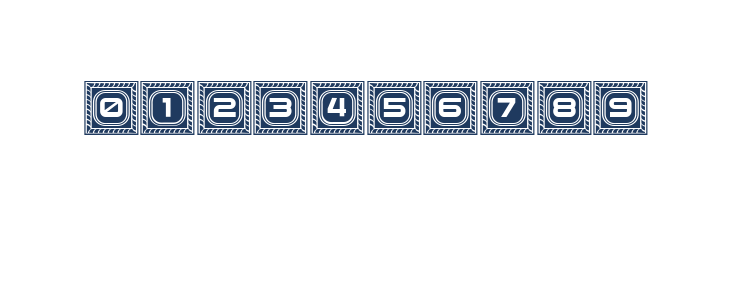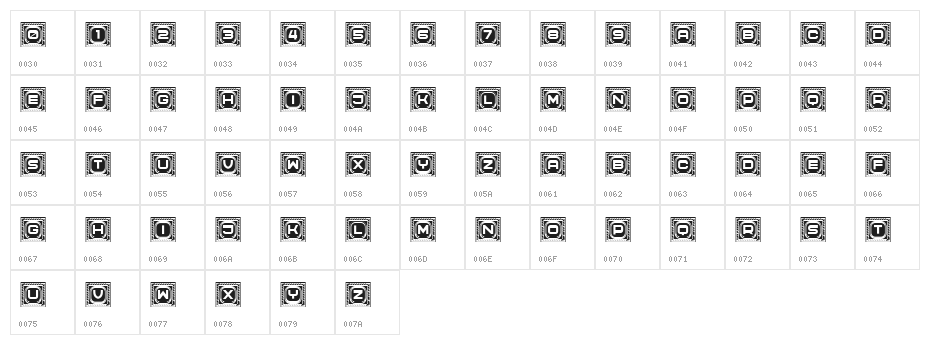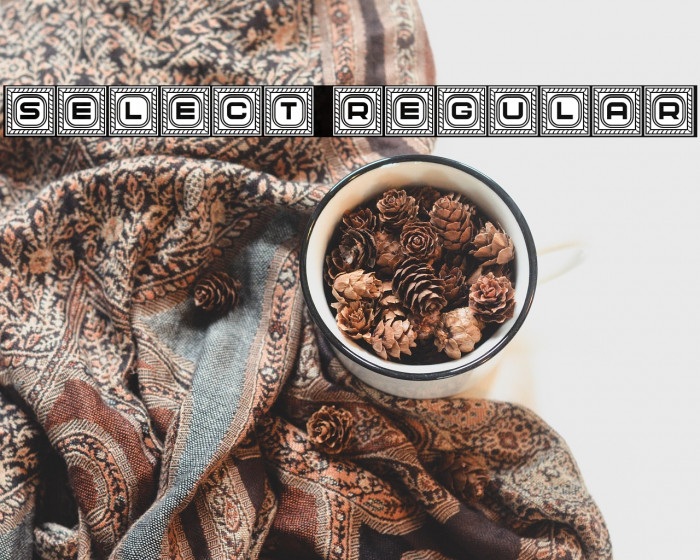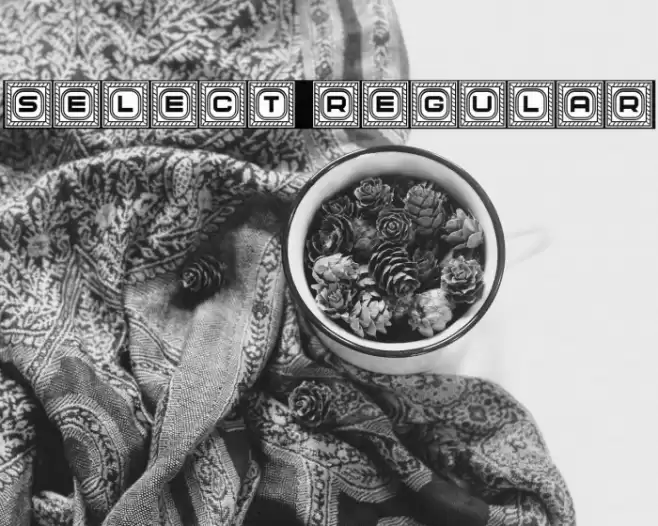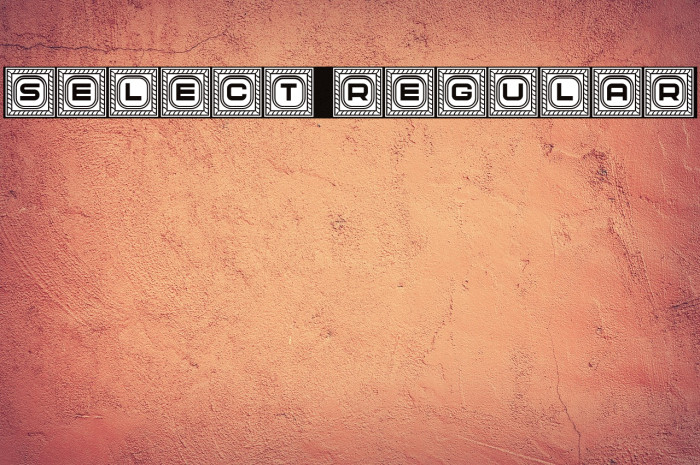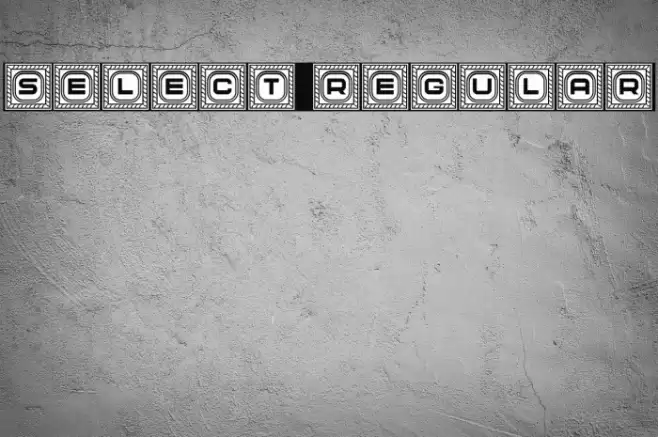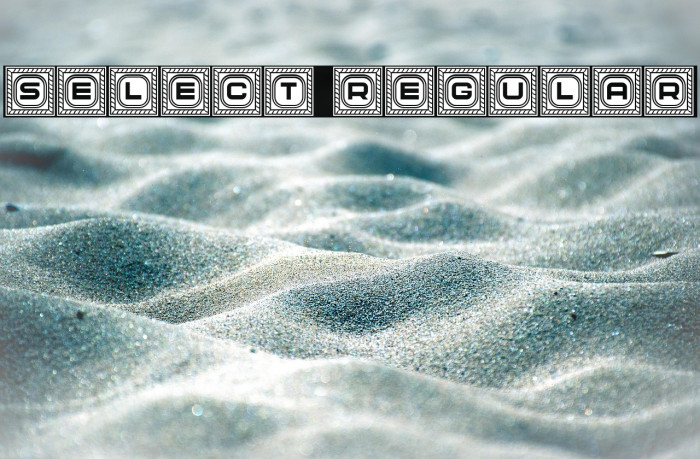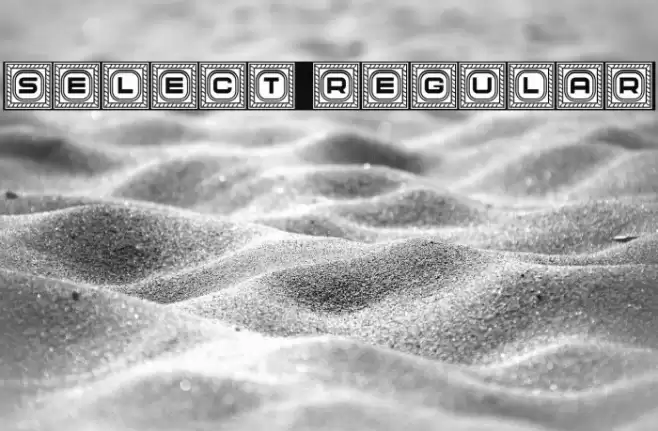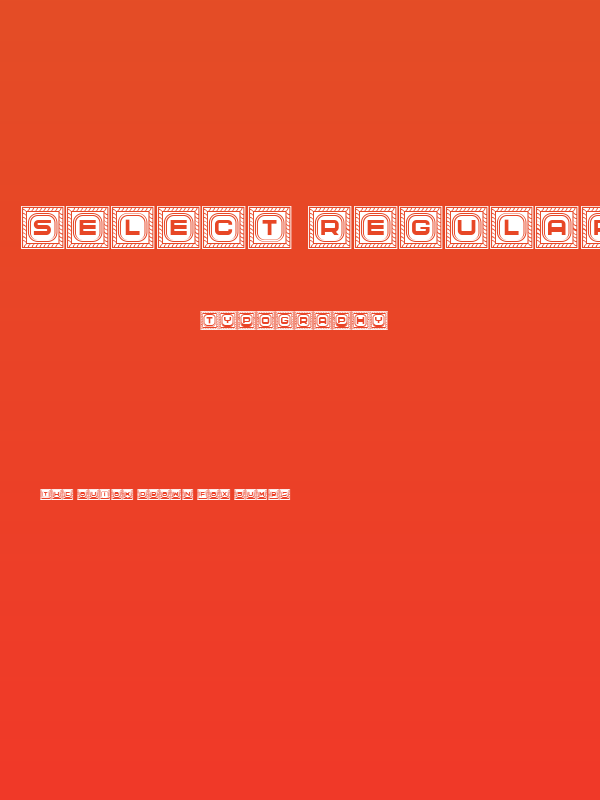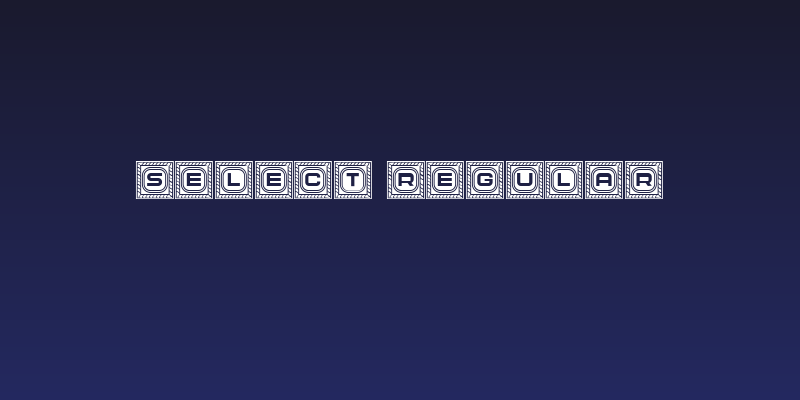
Select Regular Font
Select Regular Description
This font features a bold, geometric style with each character enclosed in a square frame. The letters and numbers are presented in a blocky, sans-serif form, with a consistent thickness throughout. The background of each character is filled with a diagonal striped pattern, adding a dynamic and textured appearance. The overall design is highly decorative, making it suitable for eye-catching displays. The uniformity and symmetry of the characters contribute to a modern and structured aesthetic.